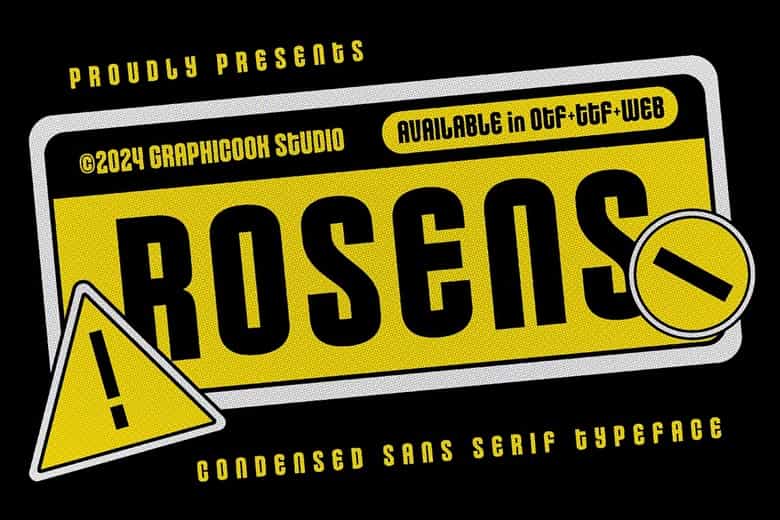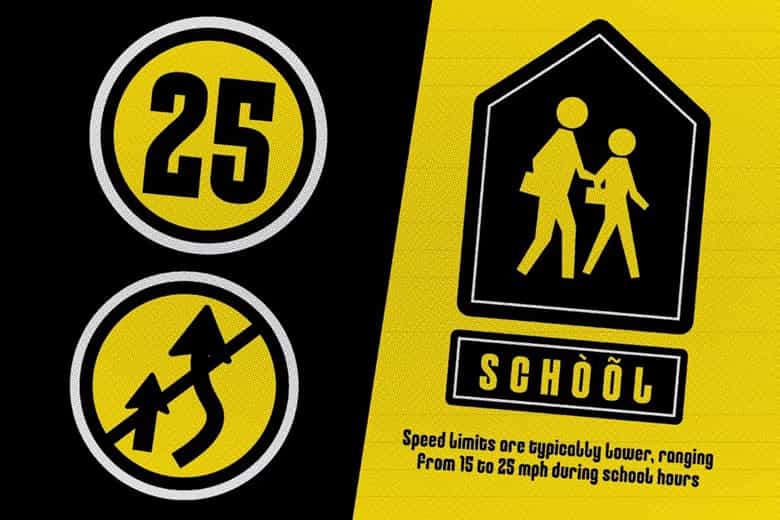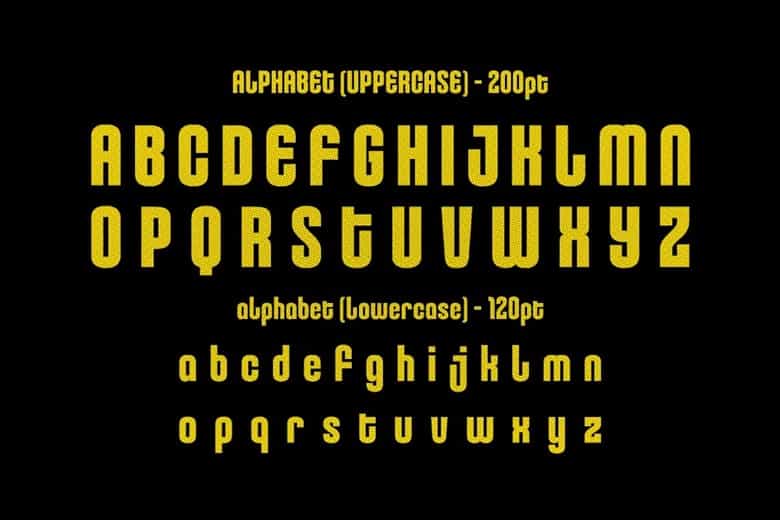
Rosens is a modern sans serif font with the features of rounded and condensed font – an optimal option for any design. It is all over for headlines, logos, magazines, packaging, quotes, movies, games, album, book and flyer covers making Rosens an ideal solution towards achieving attractive results any time.